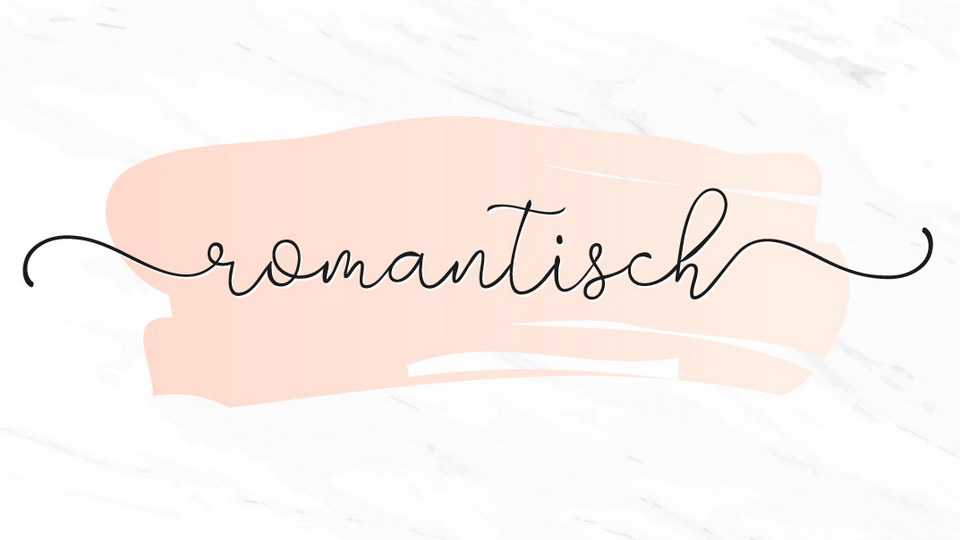
Download Romantisch font a lovely modern calligraphy script with a natural flow. Suitable for wedding and romantic designs, cards and letters, social media, crafts and more.
Designer: Uloel Design